Kinetic Fonts in Motion Graphics: Enhancing Visual Narratives
Enhancing Visual Narratives
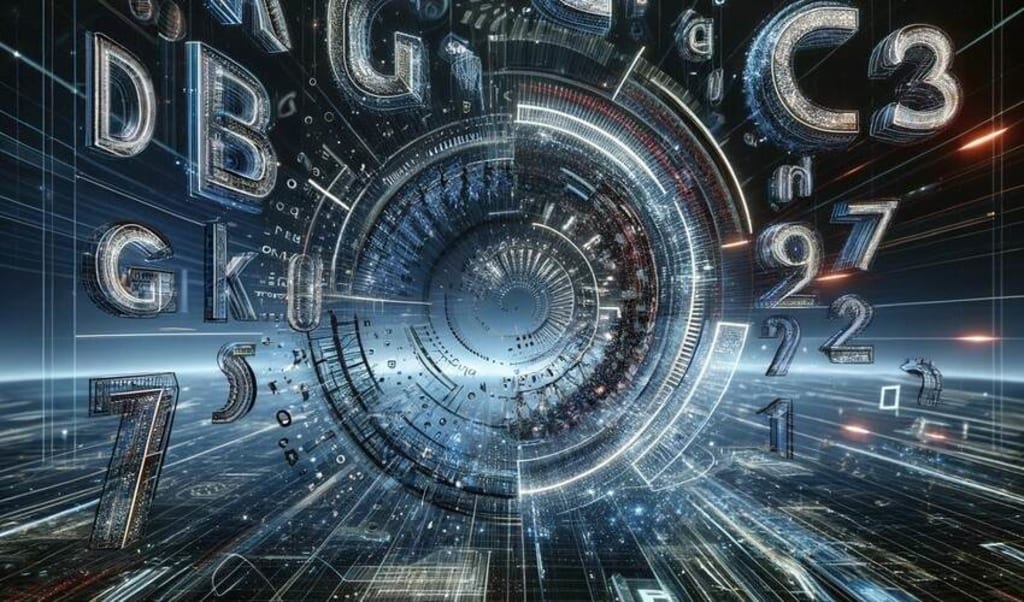
Motion graphics have long been a staple in digital media, known for their ability to convey messages in a dynamic and visually engaging way. At the heart of this visual technique often lies kinetic typography—moving text that brings words to life. This exploration into kinetic fonts within motion graphics will delve into their utility, techniques, and the impact they have on storytelling.
The Role of Kinetic Fonts in Motion Graphics
Kinetic fonts in motion graphics do more than just display text; they transform words into active elements of storytelling. Through movement, these fonts can express emotion, denote emphasis, and guide the viewer’s attention. They are particularly effective in settings where audio may not be available, such as public displays or silent social media videos, allowing the text itself to carry the narrative.
Techniques and Applications
1. Timing and Syncing: One of the key aspects of using kinetic typography effectively in motion graphics is the timing and syncing of the text with audio elements. For instance, having text appear, change, or move in sync with voiceovers or music can significantly enhance the emotional impact of the message.
2. Text Motion and Flow: The direction, speed, and style of text movement are crucial in motion graphics. Text can zoom, rotate, fade, or flip depending on what the narrative requires. Each motion can convey different feelings and meanings, from fast-paced zooms for excitement to slow fades for sadness or reflection.
3. Interaction with Other Elements: Kinetic fonts often interact with other visual elements in motion graphics, such as images, videos, or animated backgrounds. This interaction can create a layered narrative where text and visuals complement each other, enhancing the overall storytelling.
Impact on Storytelling
The strategic use of kinetic fonts in motion graphics can elevate the storytelling experience. By animating text, designers can create a rhythm and pace that mimics human speech, enhances dramatic timing, and emphasizes key points in the narrative. This can make the content more memorable and engaging, increasing the likelihood that the message will resonate with the audience.
Challenges and Considerations
While kinetic fonts offer numerous advantages, they also come with challenges. Overusing motion in typography can lead to clutter and confusion, detracting from the message rather than enhancing it. Designers must balance creativity with clarity, ensuring that the movement of the text does not overwhelm the viewer but rather guides and enriches the viewing experience.
Let's introducing more advanced techniques and additional considerations:
Advanced Techniques in Kinetic Typography
1. 3D Typography Movements: Incorporating 3D movements into kinetic fonts adds depth and realism to motion graphics. This technique can be used to create an illusion of space and environment, making the text interact with three-dimensional objects within the scene.
2. Morphing Text: This technique involves transitioning one letter or word into another, which can be very effective in conveying transformations or showing a logical progression of ideas. It requires precise control over the shape and timing of the text to ensure smooth transitions.
3. Text as a Mask: Using text as a mask for images or video content allows the visuals to reveal themselves through the letters. This technique not only integrates text with visual elements but also creates a unique, visually engaging effect that can highlight key words or messages.
Conclusion
Kinetic fonts are a powerful tool in the arsenal of any motion graphics designer. When used effectively, they can transform static text into a compelling part of the visual narrative, making messages more engaging and expressive. As digital media continues to evolve, the creativity and innovation in kinetic typography are set to redefine the boundaries of visual communication and storytelling.